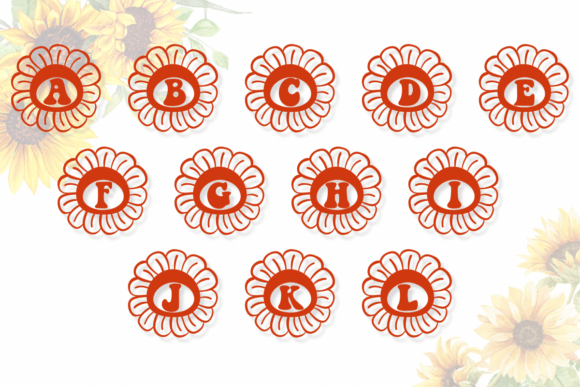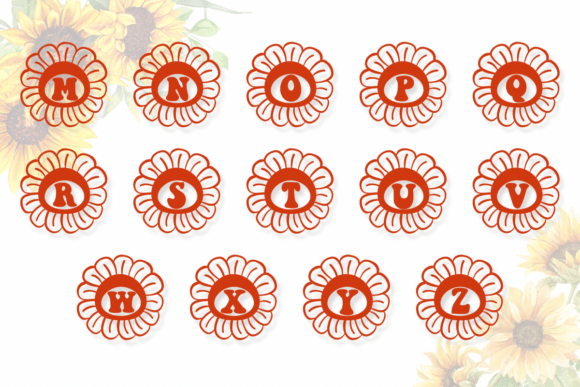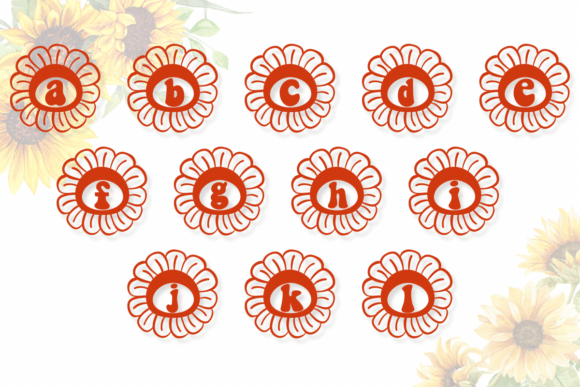
Introduction to Groovy Sunflower Font
Remember that moment when you stumbled upon the perfect font to elevate your creative project? The one that makes you feel like everything is falling into place, and your design is about to shine? That’s exactly what happened when designers discovered the Groovy Sunflower Font.
This fun and decorative font is a game-changer for anyone looking to add a touch of whimsy and personality to their designs. With each letter surrounded by bright, cheerful sunflowers, it’s no wonder why this font has become a favorite among designers. Whether you’re working on a project that requires a high-quality design resource or simply want to add some visual interest to your social media posts, the Groovy Sunflower Font is a valuable addition to your design toolkit.
Key Features of Groovy Sunflower Font
- Unique, hand-drawn design with a groovy vibe, perfect for creative projects and designs that require a touch of whimsy.
- Features a modern and playful style, ideal for use in posters, flyers, social media graphics, and other visual content.
Honest Review: Groovy Sunflower Font
As a designer, I’m always on the lookout for high-quality design resources that can elevate my creative projects. Recently, I stumbled upon the Groovy Sunflower Font, and I’m excited to share my honest review.
What works well: ✨ The font is incredibly versatile, with a playful and whimsical feel that’s perfect for a variety of creative projects. The high quality of the font makes it a great choice for designers who want a professional look without the hassle of custom design. Additionally, the free download option is a huge plus for designers on a budget.
What doesn’t: ⚠️ One of the limitations of the Groovy Sunflower Font is that it’s not suitable for designs that require a transparent background. This can be a bit of a pain if you’re working on a project that requires a transparent or gradient background.
Overall impression: The Groovy Sunflower Font is a solid addition to any designer’s toolkit. While it may have some limitations, its versatility and high quality make it a great choice for a wide range of creative projects.
- ✨ Versatile and playful design
- ✨ High quality font
The Groovy Sunflower Font is ideal for creative projects, such as greeting cards, party invitations, and social media graphics. Its bright and cheerful design makes it perfect for spring and summer-themed projects.